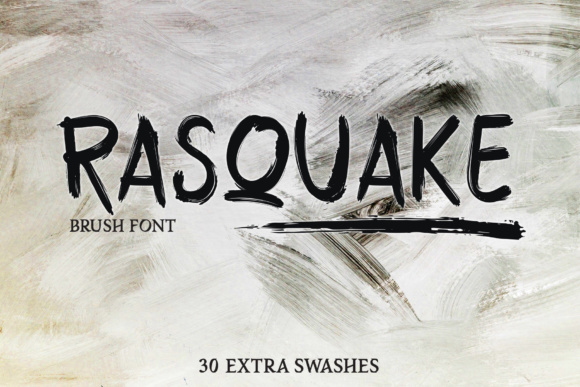
Are you seeking a font that ignites creativity and sparks visual intrigue? Look no further than Rasquake Font, a captivating display font family crafted by the renowned DK Project. This font bursts with energy, ready to elevate your designs to new heights.
Journey into the realm of Rasquake, where strength and beauty collide. Each character exudes a bold presence, demanding attention and leaving a lasting impression. Unleash your imagination and harness the power of this font to create logos that command respect, quotes that resonate, branding that captivates, and t-shirt designs that speak volumes.
With Rasquake, the possibilities are endless. It's the perfect choice for injecting a surge of energy into any project. Whether you're a seasoned designer or just starting your creative journey, this font will empower you to make a statement and leave your audience in awe.
Embrace the transformative potential of Rasquake. It's more than just a font; it's a gateway to a world of visual storytelling. Let your designs radiate with newfound confidence and originality.
Don't settle for ordinary fonts that blend into the background. Choose Rasquake and unlock the power to turbocharge your designs. Experience the thrill of creating visuals that captivate, inspire, and ignite imaginations.